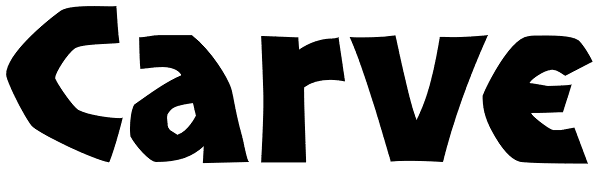
Carve
Carve is an African font that was inspired by fonts such as Othello and Neuland designed in the mid-1920s. Rather than attempting to re-create these fonts in a digital form as so many others have done, I have tried to capture the “spirit” of the...
Carve
Carve Incised